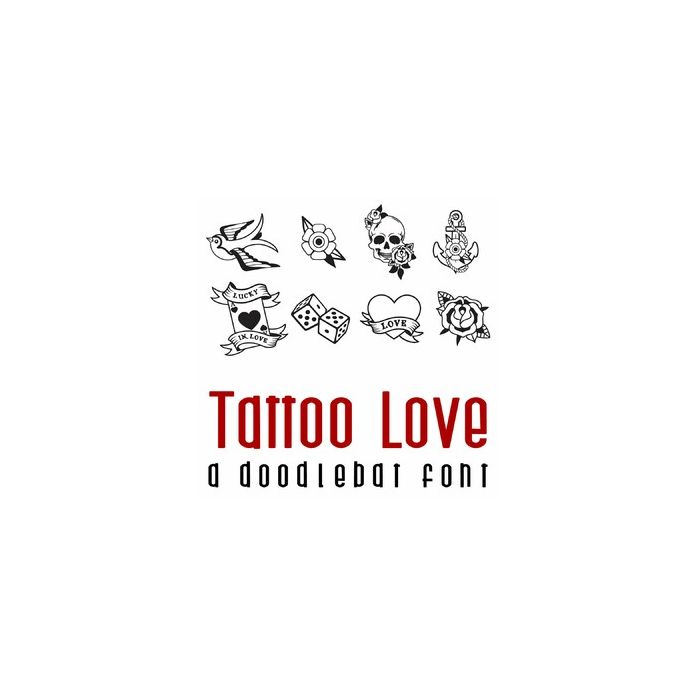
This fun doodlebat font features 26 fun tattoo style Valentine tattoos. Perfect for cards, gifts, decor, crafts, scrap book pages, planner stickers and more!